10 Messy Fonts for Playful Branding
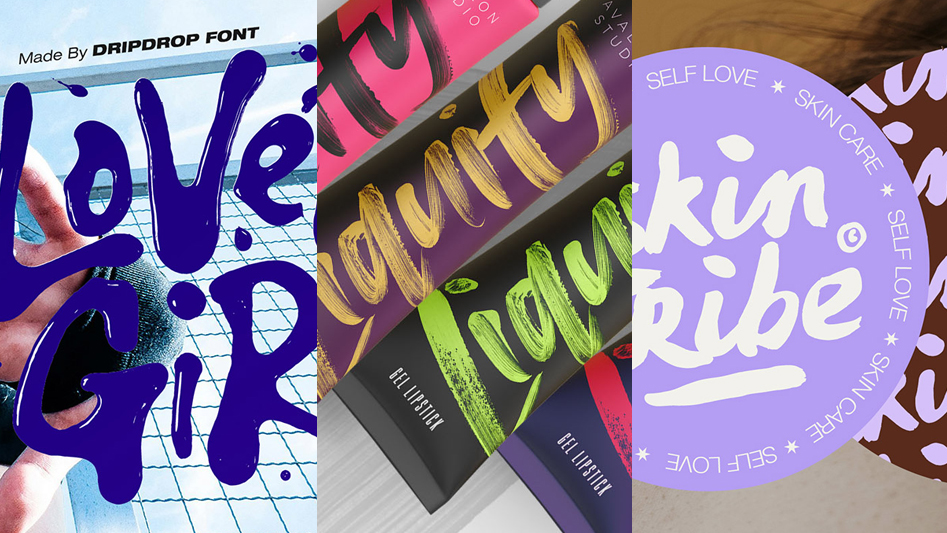
You know I love to get hands-on with many of my font designs. I’ve built up a collection over the years which are beautifully messy, splattered, textured, human and real – perfectly imperfect fonts that break all the rules. Great for adding some personality and carefree playfulness to your designs! Here are some of my most characterful hand painted/hand drawn messy fonts for your next design project in need of a little creative chaos;
1. Dripdrop Liquid Font Set
Dripdrop is a hand-crafted liquid font set built entirely from real ink experiments, capturing the unpredictable beauty of drips, splats, and fluid movement in every character. The set includes 6 fonts in total — the original Dripdrop font with realistic light reflections, an alternate version for varied letterforms and more custom word shapes, and a dedicated Extras font packed with 43 underlines, drips, drizzles, and splats to build out expressive compositions. Each of these also comes in a solid version, giving you more flexibility when you want something a little more subtle or texture-ready for 3D work or overlays.
2. Hotline Script Font
Hotline Script is a high-energy, hand-drawn script font packed with retro attitude and fast, inky texture. Designed with two full sets — Regular and Alternate — it gives you plenty of freedom to switch up letterforms and create more dynamic, custom-feeling wordmarks. It also includes lowercase end-forms, 4 expressive swashes for adding flair and underlines, and 11 ligatures to help repeated letters flow more naturally. Built for bold headlines, logos, posters and signature-style type, Hotline brings a confident, nostalgic energy to anything that needs a bit more movement and personality.
3. Liquid Gold SVG Font + Actions
Liquid Gold is a striking SVG font set built from real hand-painted metallic lettering, designed to give your typography a rich, reflective finish straight out of the box. The set includes two full type-able SVG fonts (the original and an alternate version), giving you varied letterforms for more natural word shapes, plus a complete PNG letter set for use in any software. It also comes with a set of Photoshop actions that let you easily change the metallic colours without losing that high-impact shine. Ideal for bold display work, luxury branding, posters and social content that needs a strong, eye-catching metallic edge.
4. Amber Dawn Brush Font
Amber Dawn is a bold, hand-painted brush font full of energy and natural imperfections. Created with real paintbrush strokes and acrylic ink, it carries an untamed, expressive feel with textured edges and beautifully erratic forms that give every word a raw, human touch. The family includes three separate styles, giving you plenty of flexibility to build more natural hand-lettered compositions, along with 29 ligatures to help words flow and connect more organically.
5. Forever Awesome Font Duo
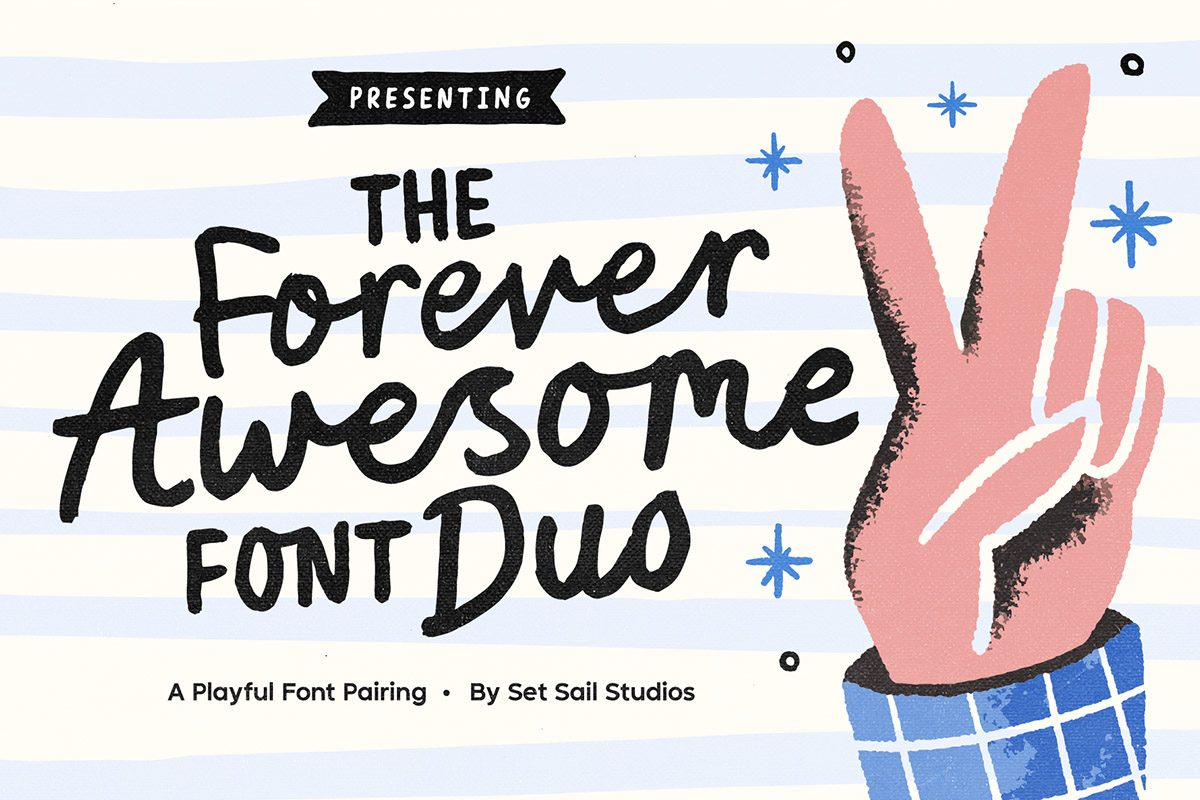
Forever Awesome is a playful font duo built for friendly, hand-drawn typography with a naturally imperfect feel. The set includes three fonts — a main Script, a Script Alt with alternate upper and lowercase characters, and an All Caps style designed for bold supporting text or clean headline layouts. The script also comes packed with 69 ligatures, helping letters flow together more naturally and giving you loads of variation for custom word shapes. Designed to feel bold, lively and personal, it’s perfect for logos, quotes, packaging, kid-friendly branding and anything that needs a warm, approachable handwritten style with a youthful spirit.
6. Summertime Stories Font
Summertime Stories is a charming uppercase script and doodle set designed to feel like real, imperfect handwriting captured straight from the page. Crafted by hand with pen on paper, it carries a naturally fluid, messy rhythm with alternate letterforms and 43 ligatures that help create more authentic, connected word shapes. Alongside the script, you also get a dedicated Doodles font packed with 52 hand-drawn elements — arrows, underlines, scribbles, icons and little sketches — designed to layer in extra personality and bring compositions to life.
7. Foxglove SVG Font
Foxglove is a playful, minimal brush SVG font designed to bring a soft, hand-painted feel to modern typography. Built from real watercolour-style textures, it combines organic brush strokes with a clean, minimal structure — giving it a relaxed but refined personality. The set includes two versions: an OpenType-SVG font with built-in transparent paint textures for rich, layered colour effects, and a solid version for broader compatibility. Both styles feature alternate uppercase sets (switchable via caps lock), allowing you to easily shift the rhythm of your lettering. Ideal for quotes, branding, social content and light editorial layouts, Foxglove sits in that sweet spot between expressive and understated.
8. Hot Mess SVG Font
Hot Mess is a bold, unapologetic SVG brush font built from real hand-painted strokes, designed to feel loud, messy, and full of movement. Using OpenType-SVG technology, it delivers rich, high-resolution paint textures directly inside the font, giving every letter a raw, inky energy that feels completely unfiltered. The set includes both an SVG version with full texture support and a traditional regular font for wider compatibility, along with 17 built-in ligatures for more natural letter flow and 4 expressive swashes to add extra flair and underlines. Designed for maximum impact, Hot Mess is perfect for social graphics, posters, branding and anything that needs a bit of controlled chaos.
9. CRUSH SVG Font
CRUSH is a messy, loud all-caps SVG brush font that fully embraces imperfection. Built from real paint textures, it delivers rich, high-resolution strokes directly inside the font, giving every letter a bold, inky, hand-painted feel. The set includes both an SVG version for full colour, textured display work and a regular font for broader compatibility, along with alternate character sets that let you switch letter styles for more natural variation in your layouts. It also includes 4 swashes for adding underlines and extra flair to your compositions.
These fonts are all built around the same idea — embracing imperfection and turning it into something expressive, usable, and full of character. Whether it’s messy brush strokes, liquid textures, or hand-painted details, each one is designed to bring a bit more life and unpredictability to your work. Hopefully you find something in here that sparks an idea, breaks a guideline, or pushes a design somewhere more interesting.